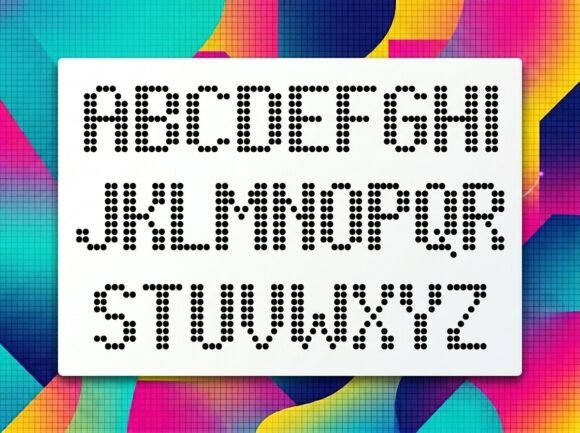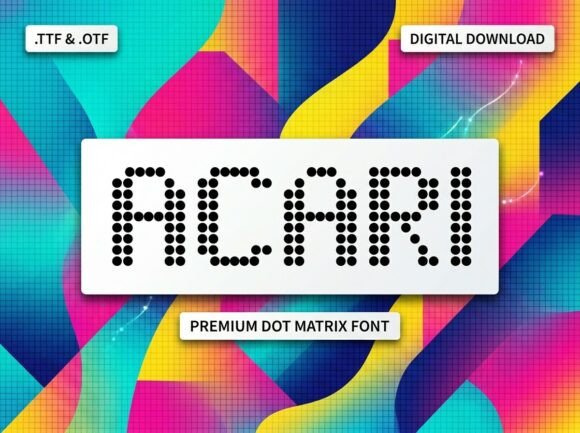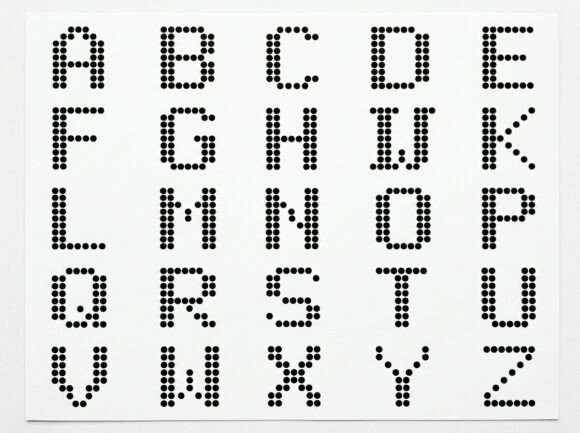
Introducing Acari Font: Where Retro-Tech Meets Modern Precision
In the world of typography, few fonts manage to evoke a sense of nostalgia while still exuding modernity. Acari Font, however, achieves this delicate balance with remarkable finesse. This premium dot matrix font is a masterful blend of retro-tech charm and contemporary precision, making it an exceptional choice for designers and crafters looking to infuse their projects with a distinct digital aesthetic.
The Genesis of Acari Font
Acari Font is constructed from a perfect grid of circular points, meticulously designed to capture the nostalgic essence of vintage receipt printers, transit displays, and early computing interfaces. This unique construction not only pays homage to the technological artifacts of yesteryears but also brings a clean, modular structure that ensures excellent legibility. The result is a typeface that is both rhythmically industrial and pleasingly pixel-perfect.
One of the standout features of Acari Font is its distinctive design, characterized by:
- Modular Consistency: Each character is composed of a grid of circular dots, providing a uniform and cohesive look that is both industrial and artistic.
- Retro Aesthetic: The font’s design is deeply rooted in the visual language of early digital interfaces, making it perfect for projects that require a nostalgic or vintage tech look.
- High Legibility: Despite its retro inspiration, Acari Font boasts excellent readability, making it suitable for both body text and headlines.
Applications of Acari Font
Acari Font’s versatility and distinctive style make it an excellent choice for a variety of design applications:
- Tech-Themed Branding: For tech startups and companies looking to establish a brand identity that resonates with innovation and cutting-edge technology, Acari Font offers a pixel-perfect artisanal charm.
- Lo-Fi Aesthetic Designs: Designers aiming for a lo-fi or retro aesthetic in their projects will find Acari Font to be a valuable asset, adding an authentic vintage touch to their work.
- Futuristic Editorial Headers: For editorial projects, Acari Font can be used to create striking headers that blend futuristic vibes with a nod to technological heritage.
- Creative Packaging: Whether it’s for product packaging or promotional materials, Acari Font can add a unique and memorable visual element that captures consumer attention.
Why Choose Acari Font?
In a market flooded with generic typefaces, Acari Font stands out for several reasons:
- Unique Aesthetic: It offers a distinct digital aesthetic that is hard to replicate with standard fonts.
- Versatility: Acari Font can be used across a range of projects, from digital interfaces to print materials.
- Nostalgia and Innovation: It successfully blends nostalgic charm with modern precision, making it a timeless choice.
Acari Font is more than just a typeface; it’s a design statement. It embodies the spirit of retro-tech while embracing modern design principles. Whether you’re a designer looking to create a distinctive brand identity, a craftsperson aiming for a unique aesthetic in your projects, or simply someone who appreciates the fusion of nostalgia and innovation, Acari Font is an extraordinary choice. With its pixel-perfect artisanal charm and structured innovation, Acari Font is poised to become a staple in the world of typography.
In conclusion, Acari Font is a remarkable addition to any designer’s toolkit, offering a unique blend of retro charm and modern functionality. Its applications are vast, and its potential for creative expression is limitless. Dive into the world of Acari Font today and discover how it can elevate your designs to new heights.